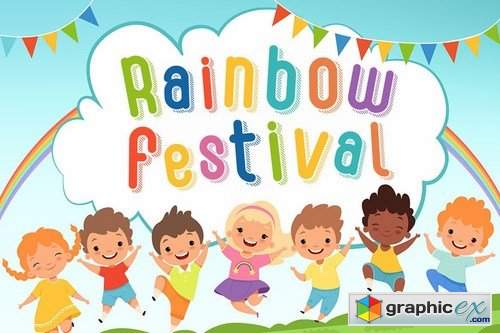
Honey Duck - Playful and Unique Font
Honey Duck embodies fun, quirkiness, and authenticity. This enchanting display font will turn any creative idea into a true standout.